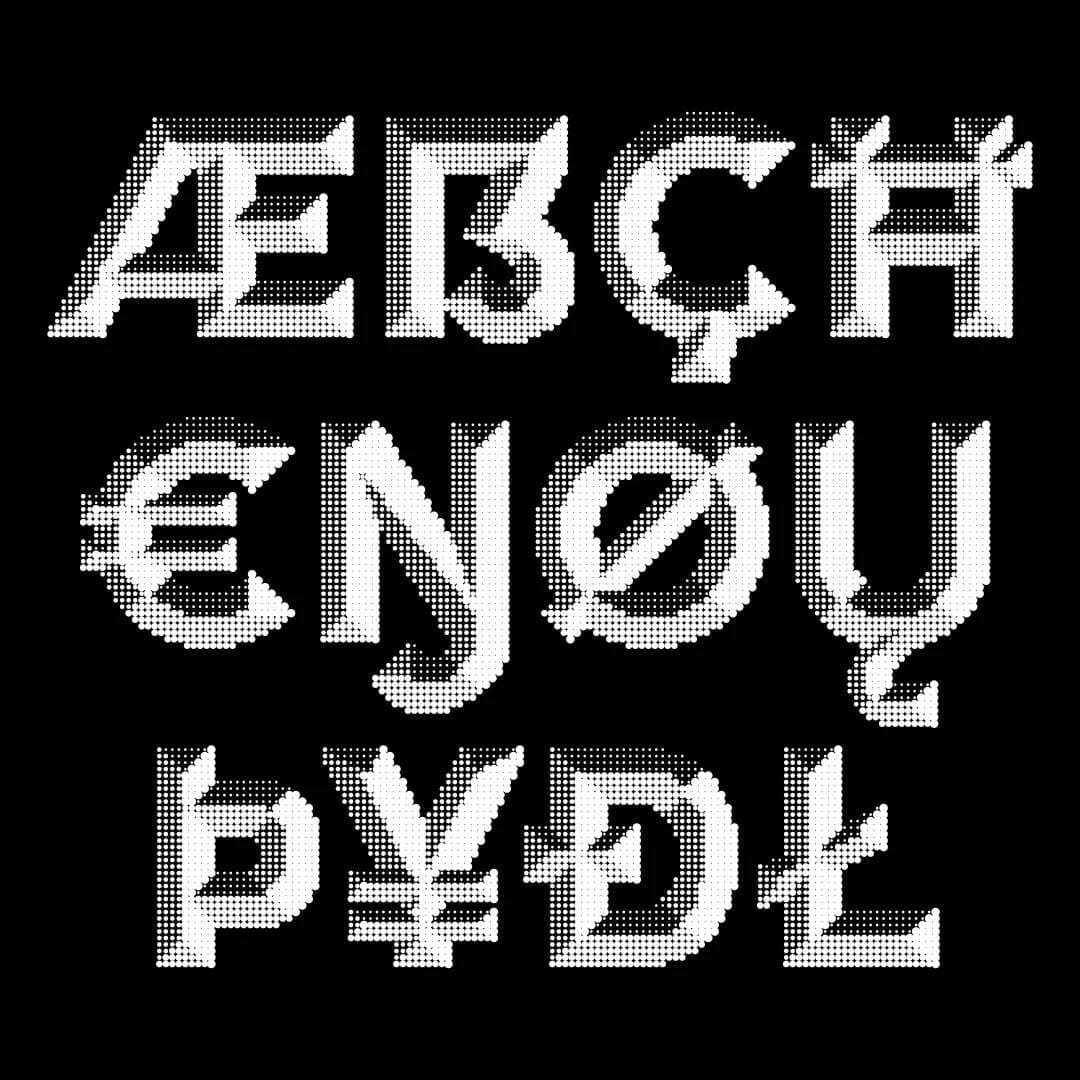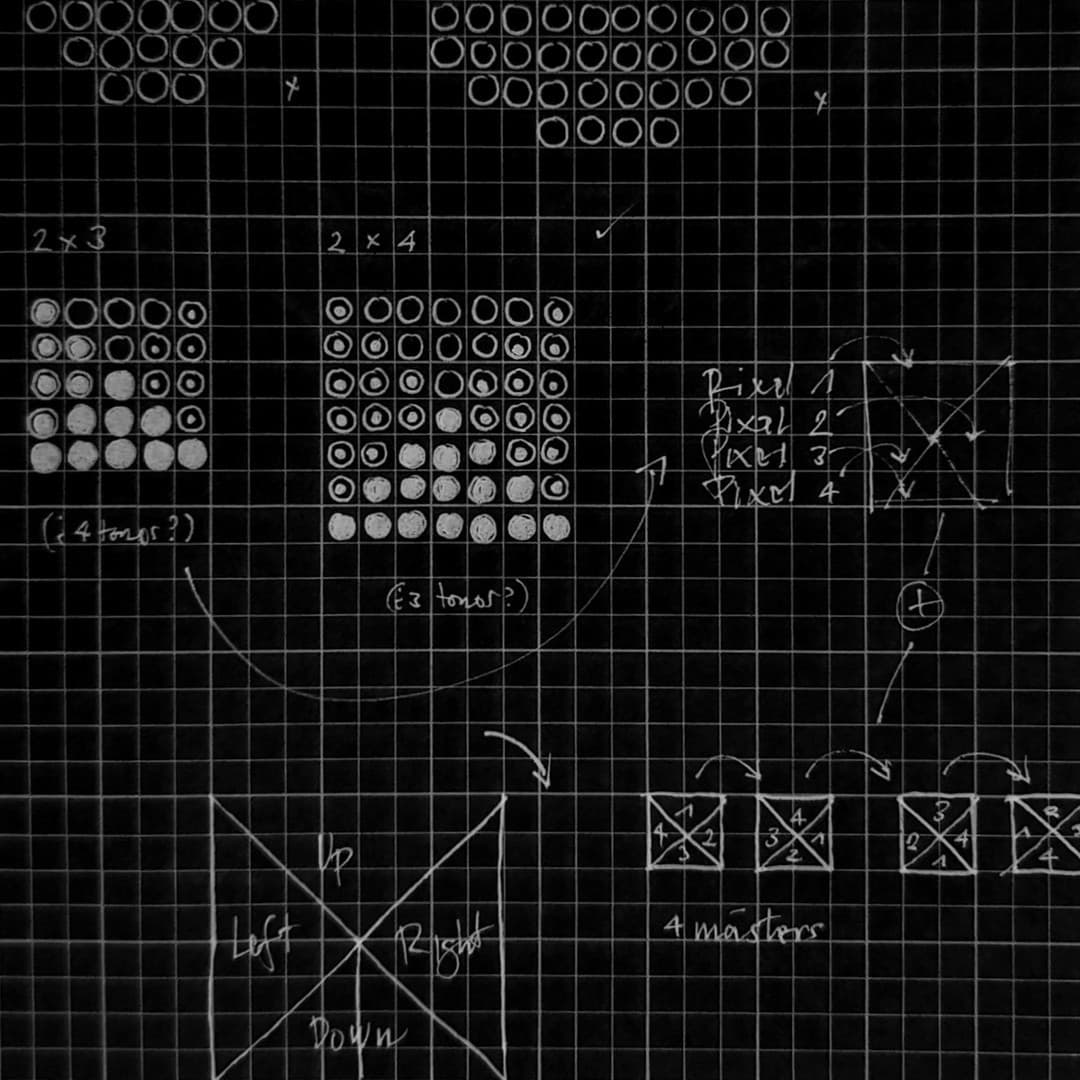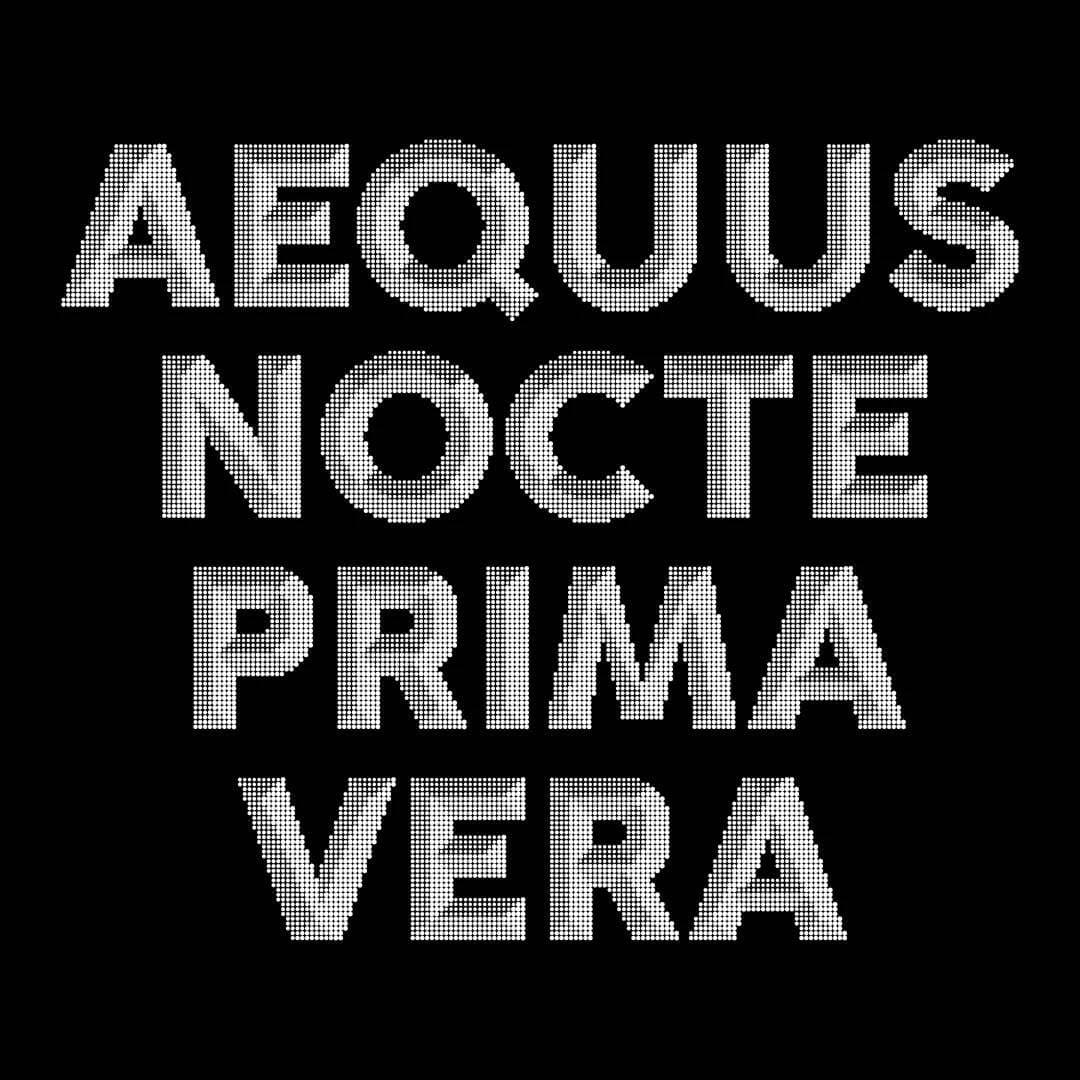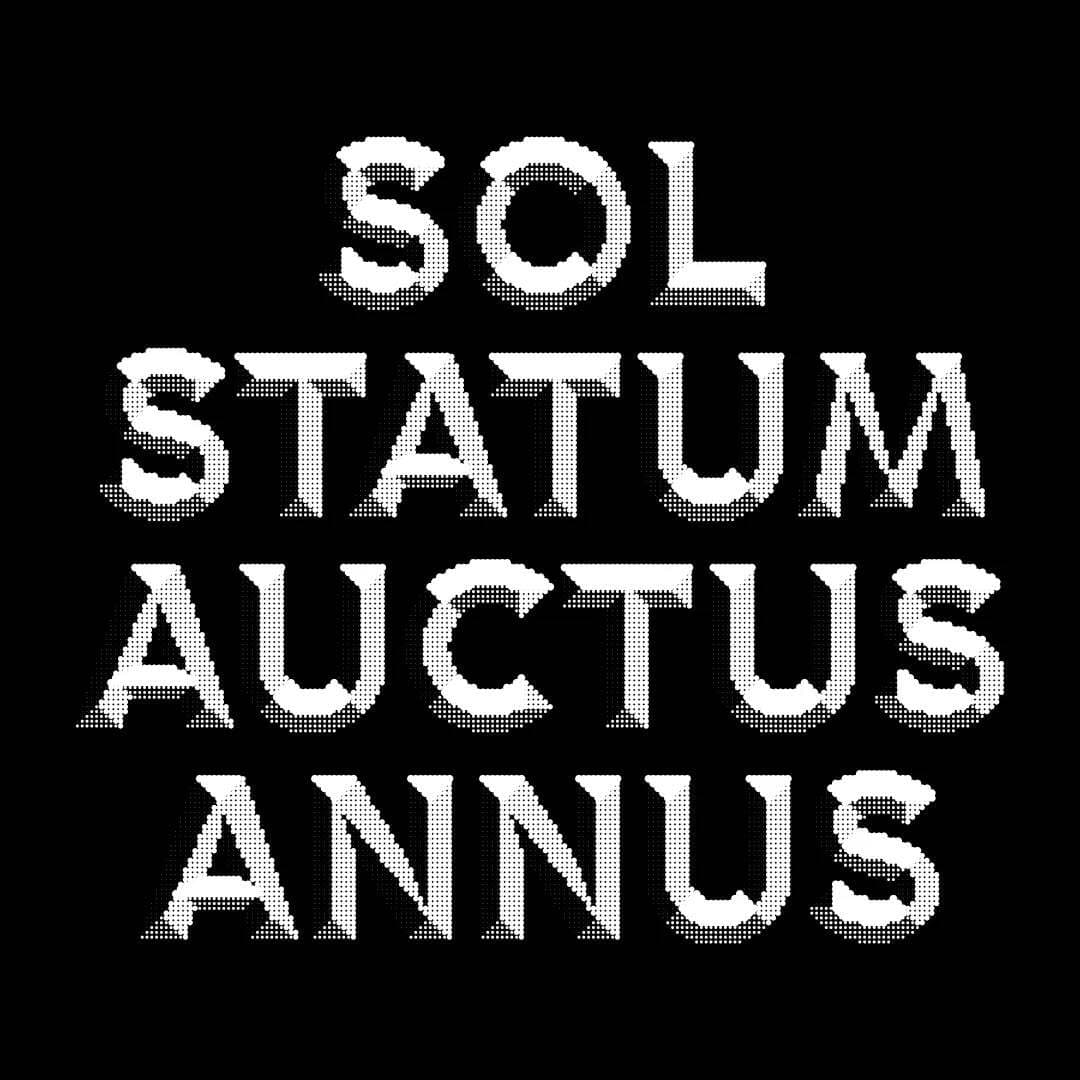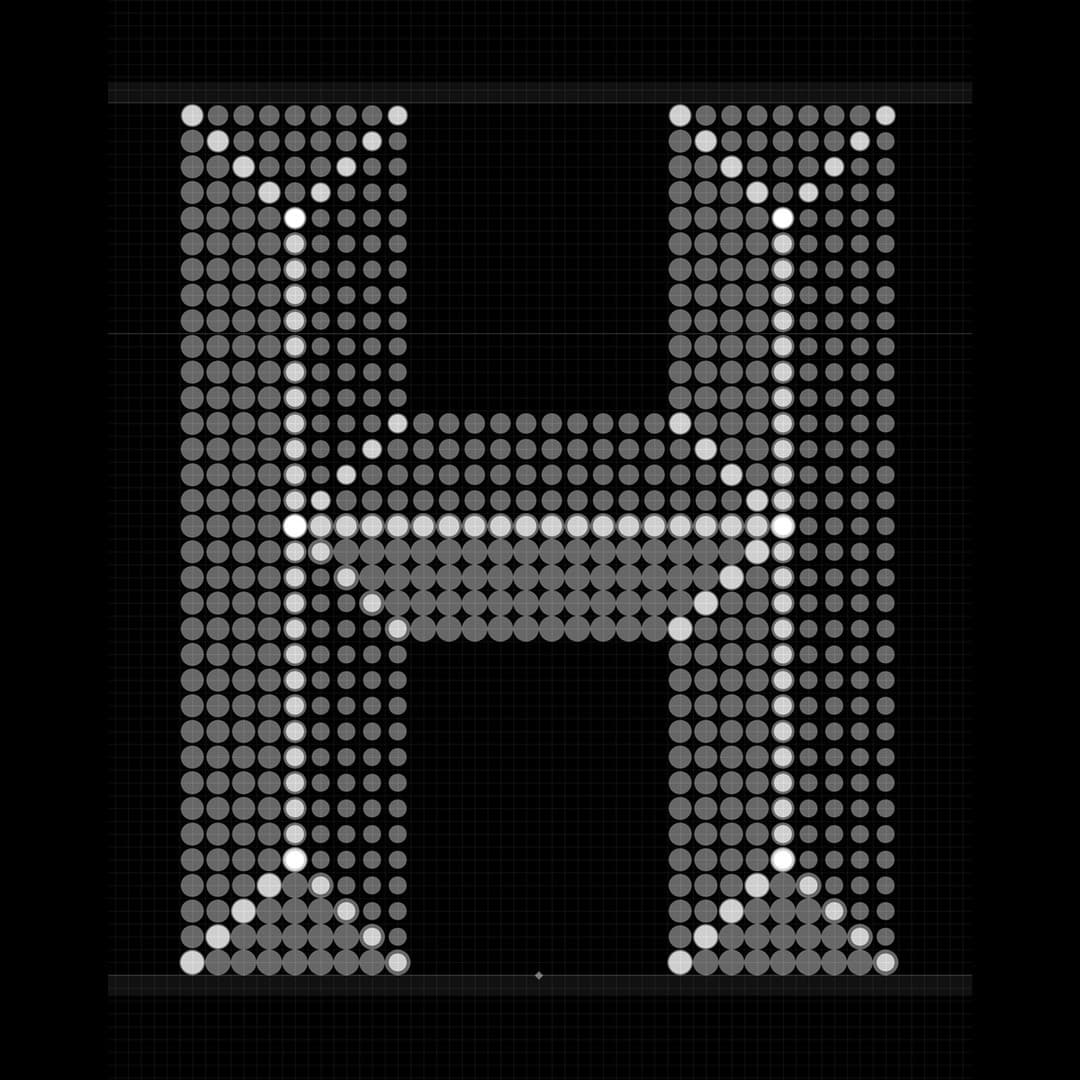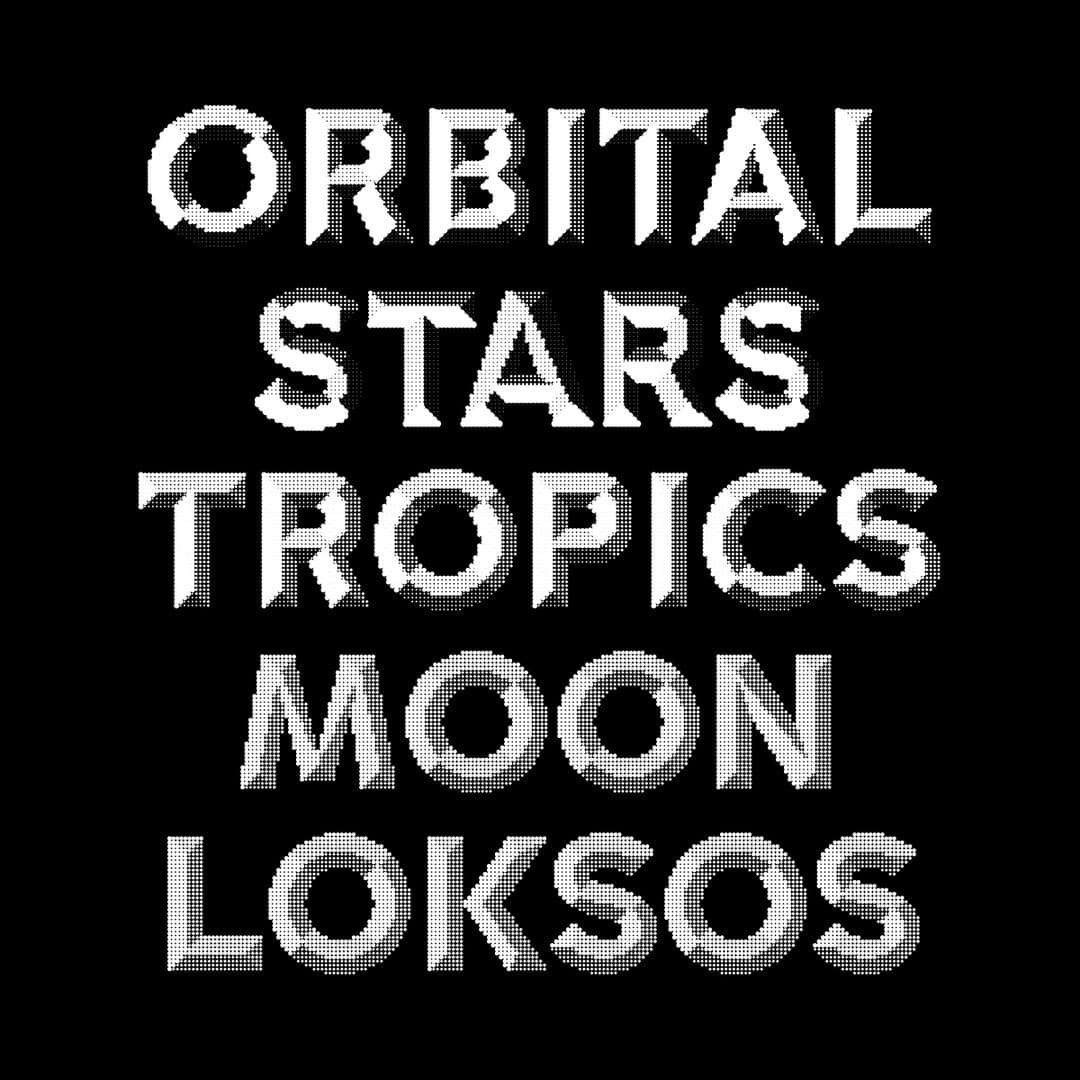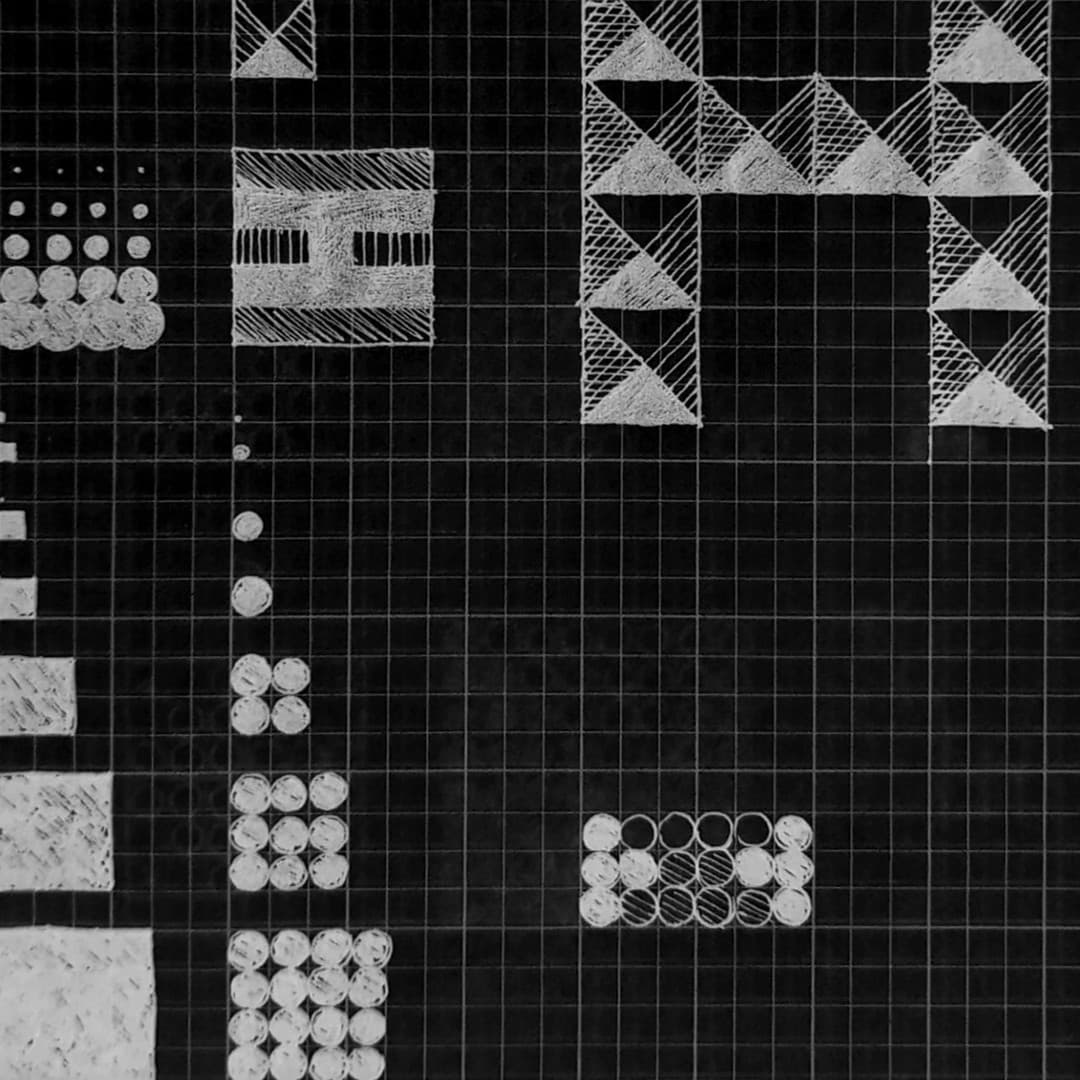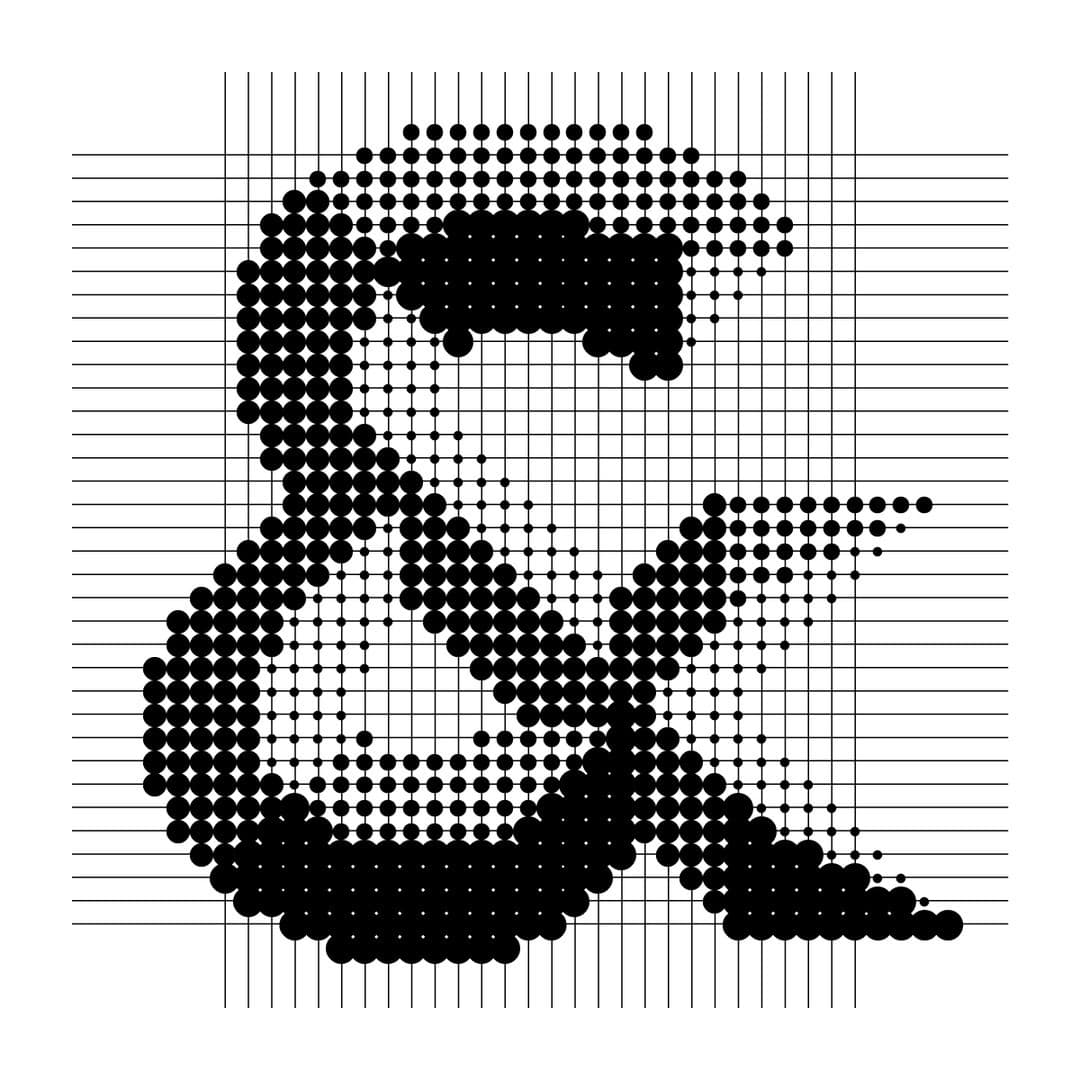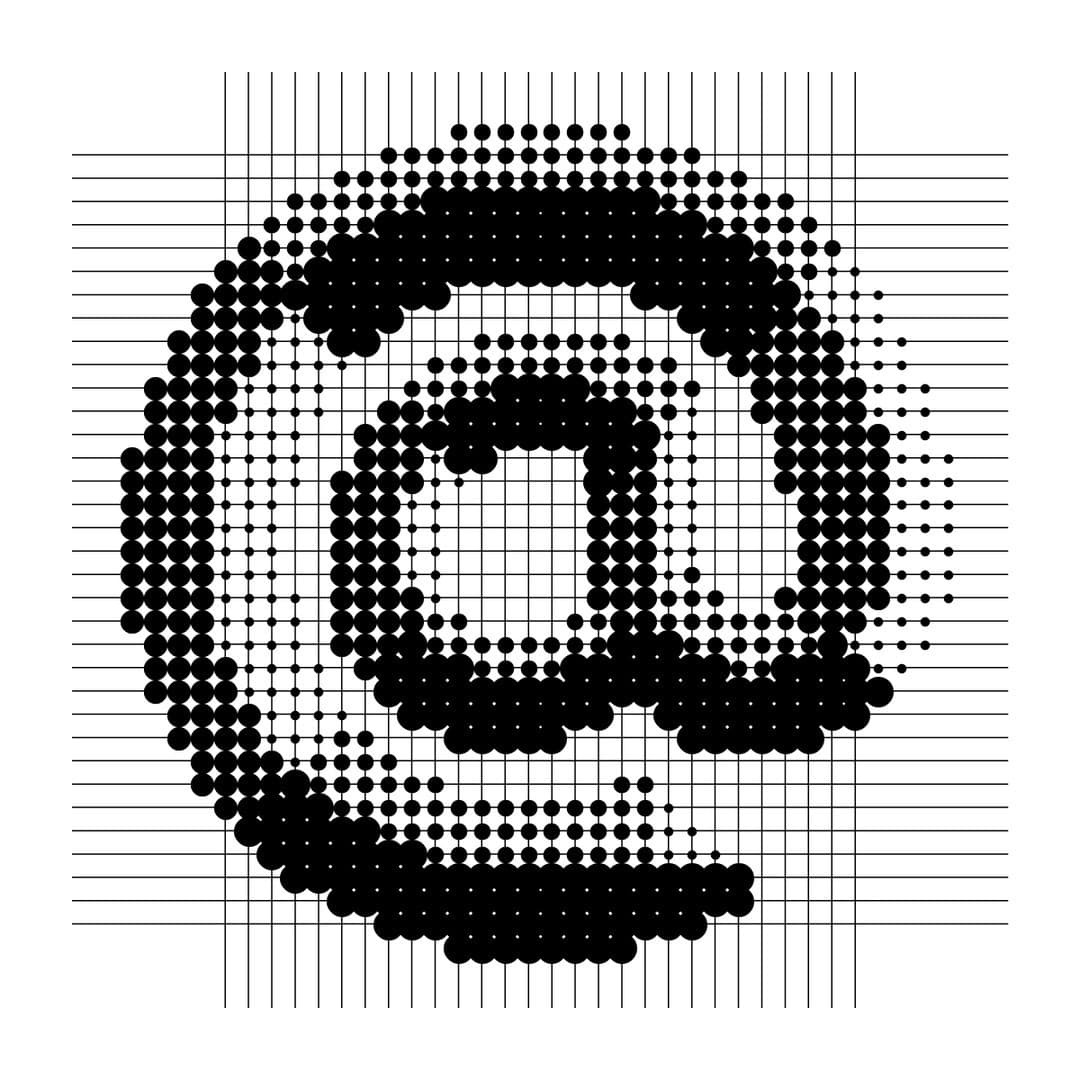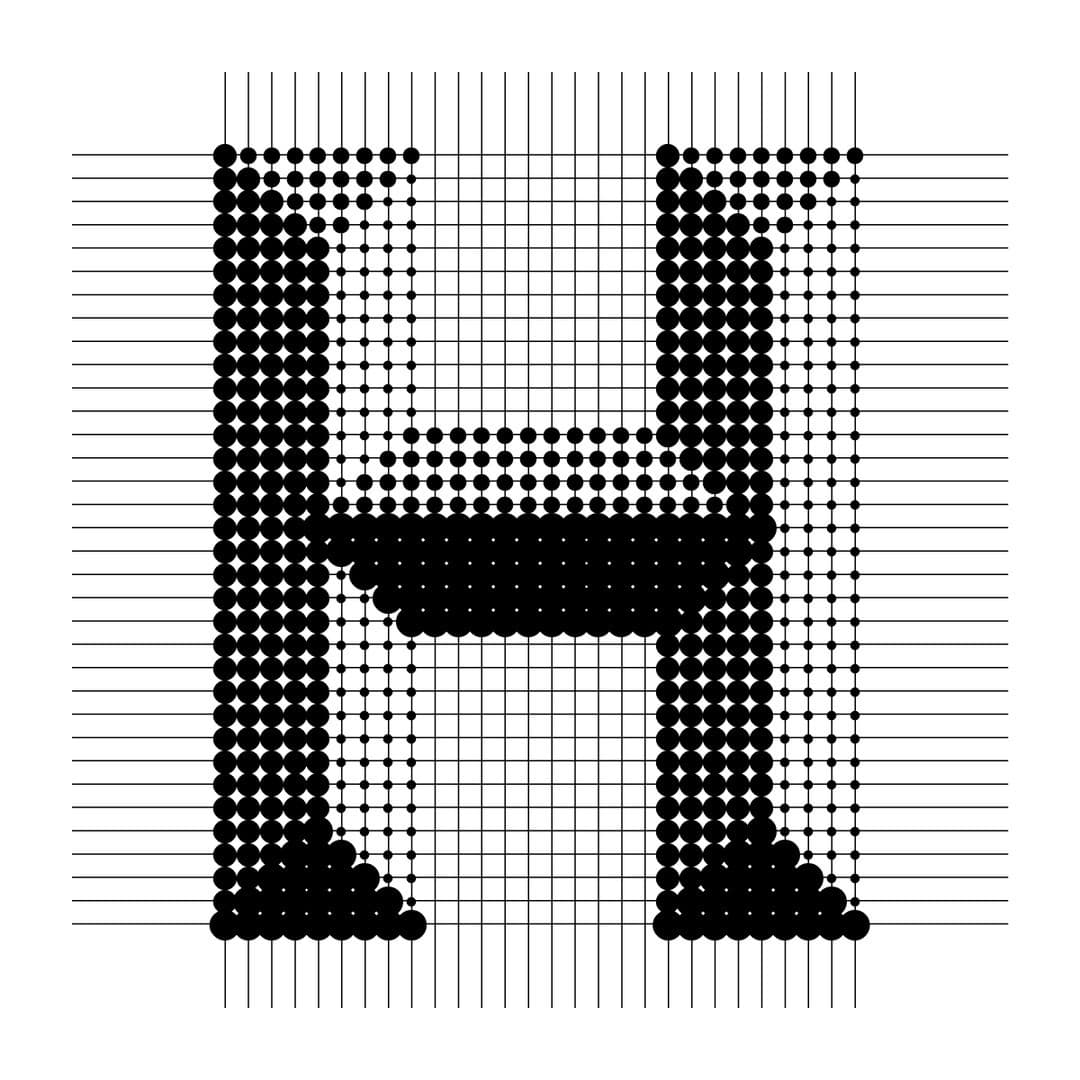
Hour presents both conceptual and technical challenges. It is a contemporary interpretation of engraved letters that explores how we perceive their forms based on the angle of incidence of light. One of the main challenges was how to portray the depth of three-dimensional shapes using only Bézier curves and how to express various tones of gray. The illusion is created by an interplay of rasters with varying values. This variable font features two axes. Similarly to a sundial, the first axis “hour” determines the angle at which light strikes the surface of the letters. The second axis “okta” borrows the measurement of cloud cover from meteorology. By varying it, the user can perceive a shift in light intensity, similar to adjusting the density of cloud cover in the sky.